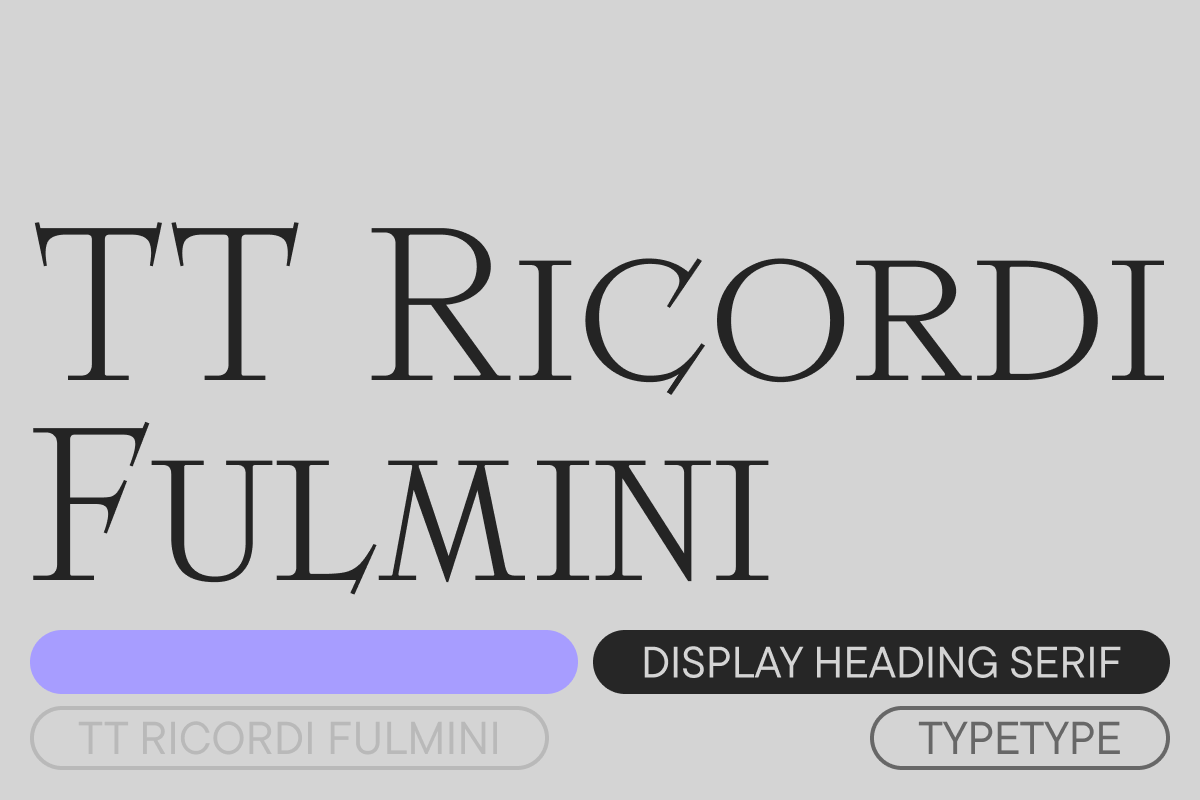
TT Ricordi Fulmini Regular
TT Ricordi Fulmini is a fashionable contemporary serif firmly holding on to its historic roots. The font turned out to be like a thistle flower: bright and catchy, but still subtle and delicate. The initial inspiration for the project was the inscription on the altar from the National Gallery of Umbria in Perugia. As the font was pulled into «contemporaneity», it was completely transformed and revealed its new side.